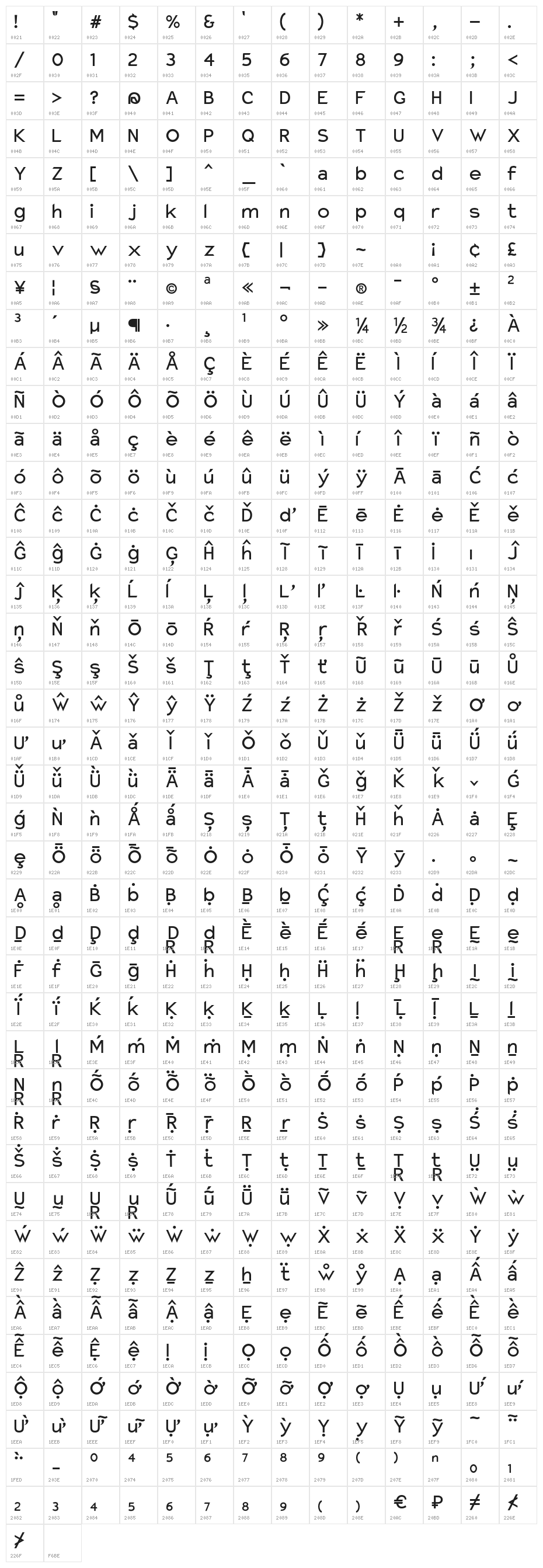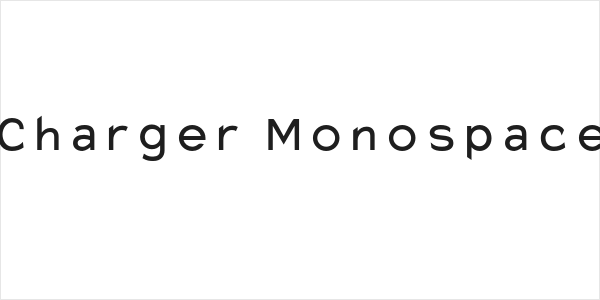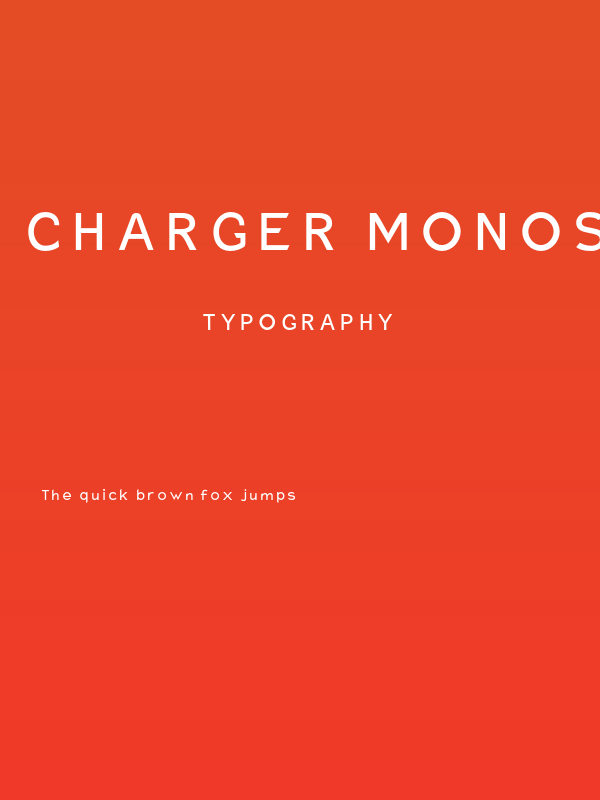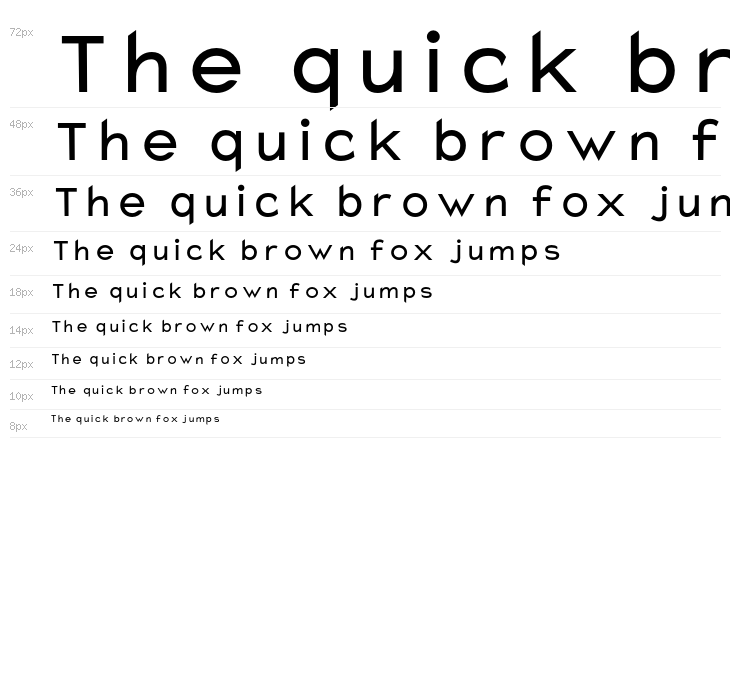
Charger Monospace Font
Charger Monospace Description
This font features a clean and modern design with a monospaced structure, where each character occupies the same amount of horizontal space. The characters are crafted with a geometric precision, offering a uniform and balanced appearance. The uppercase and lowercase letters are distinct yet harmonious, with rounded edges that soften the overall look. The numerals are clear and legible, making them suitable for data presentation. Special characters are well-defined, maintaining the font's consistent style. This font is ideal for coding, technical documentation, and any project requiring a structured and organized aesthetic.
| Use Case | Coding, Technical documentation, Data presentation |
| Proposed Projects | Ideal for coding, technical documentation, data presentation, and structured design projects. |